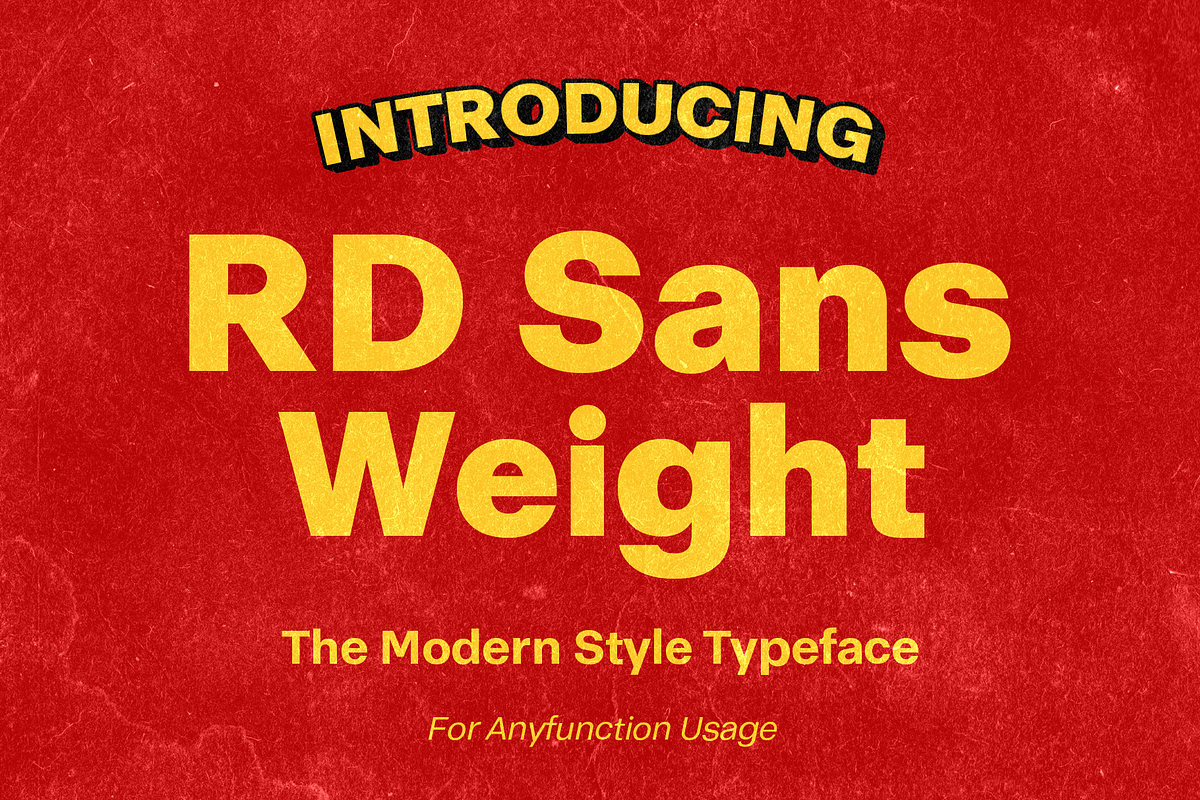
RDS Weight - Modern Type Font Free Download is a bold and minimalistic sans-serif typeface designed for impactful visual communication. With its clean lines, geometric structure, and strong presence, this font is perfect for tech branding, modern logos, UI design, editorial headlines, and bold product packaging. It delivers clarity and confidence, making it a go-to choice for sleek, contemporary projects.
RDS Weight is especially effective in large display sizes where its precision and balance shine. It offers versatility across digital and print formats, ensuring your message is both readable and stylish.